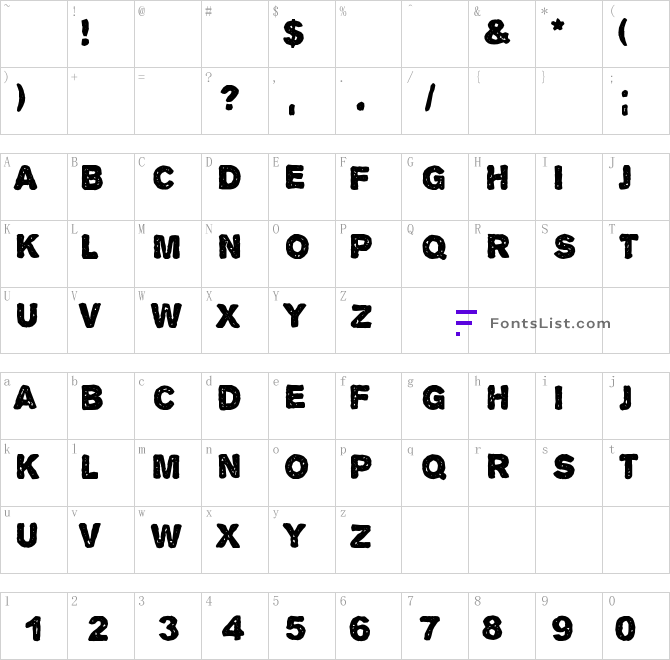
- Font Name:Alpha Echo
Alpha-Echo-copy-2-.ttf is a very beautiful artistic font, Alpha-Echo-copy-2-.ttf is widely used in the design and printing of various books and pictures,Alpha-Echo-copy-2-.ttf has a strong visual impact,Alpha-Echo-copy-2-.ttf is a commonly used font in newspapers, magazines and books, and is used in posters, e-commerce Poster design, store design, logo design, font design and other fields.Alpha-Echo-copy-2-.